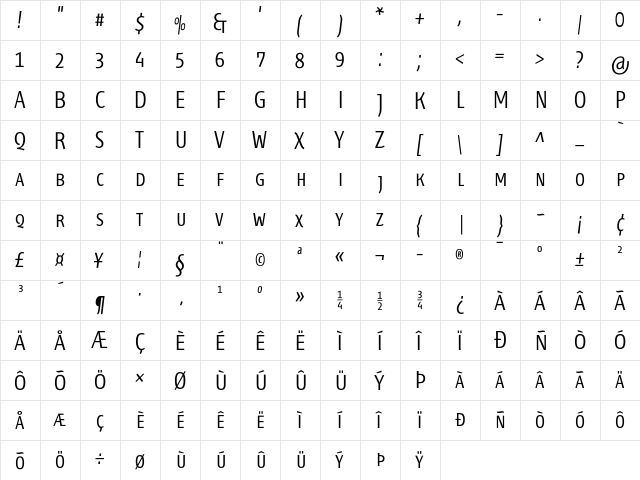
Fontana ND Cc SC Light
Design Context for Fontana ND Cc SC Typeface
Fontana ND Cc SC is a composed and adaptable typeface that performs quietly and consistently across a wide range of design contexts. Its slender proportions lend an understated elegance to any composition.